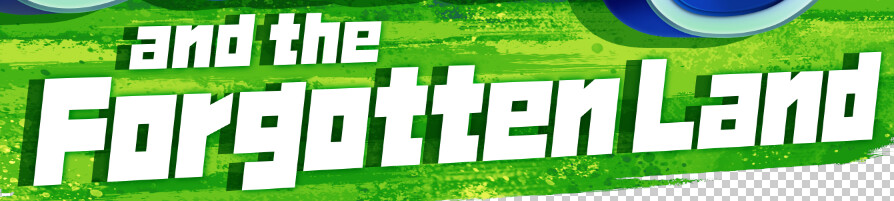
Does anyone know the font used for “and the Forgotten Land” in the Kirby and the Forgotten Land logo
This logo is designed by tweaking the font “TT Bricks Black Black” Some characters are totally customized or re-created / re-designed.